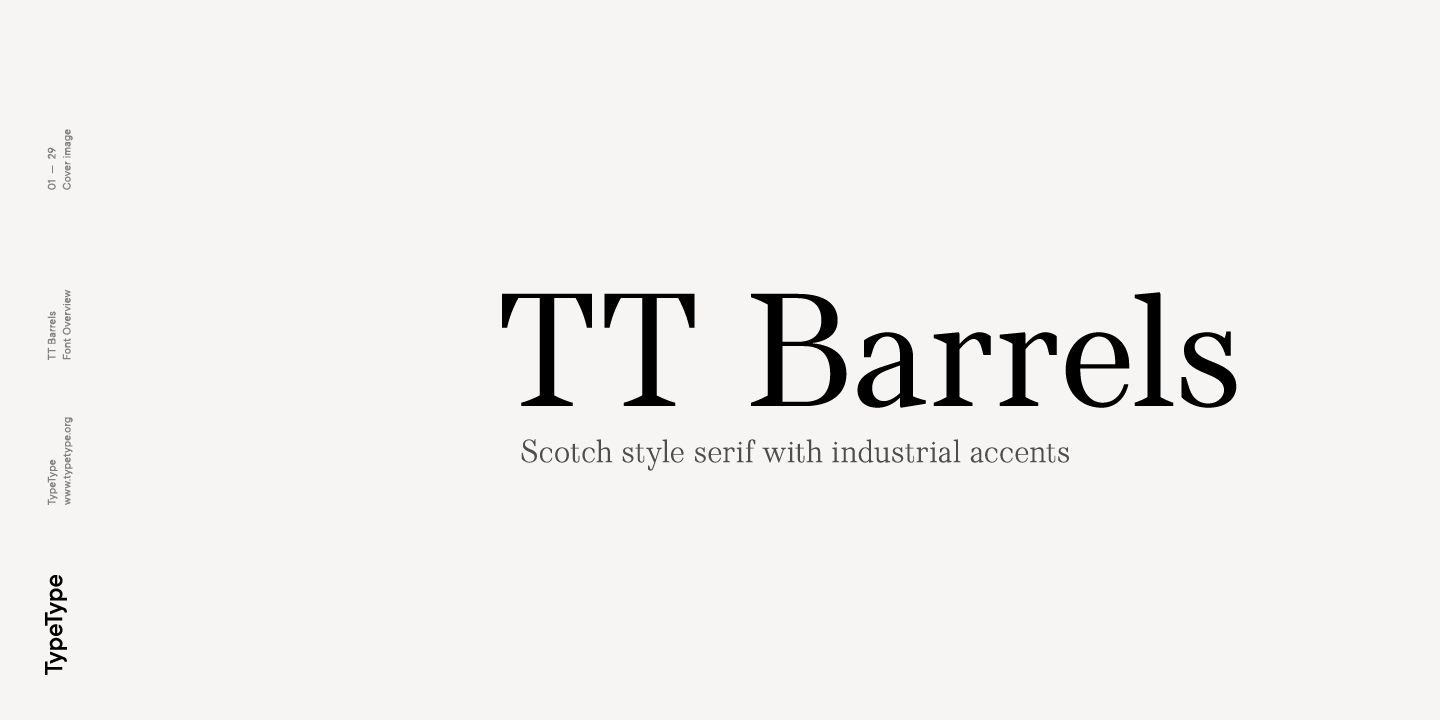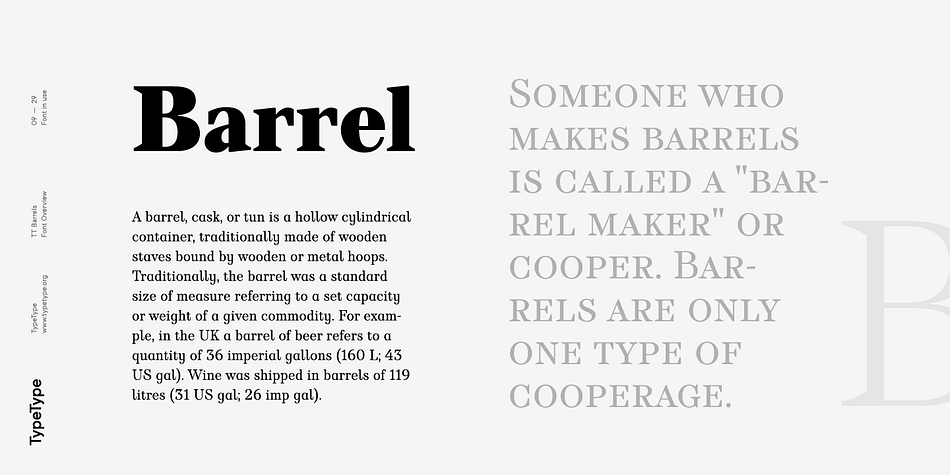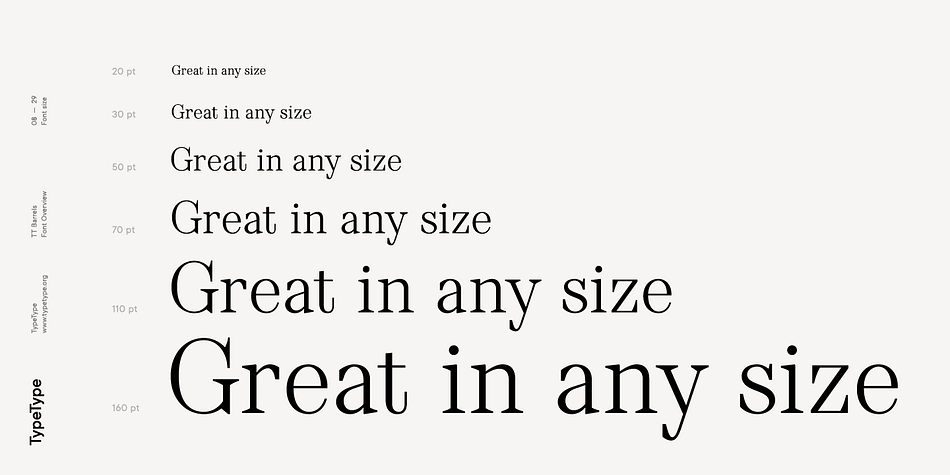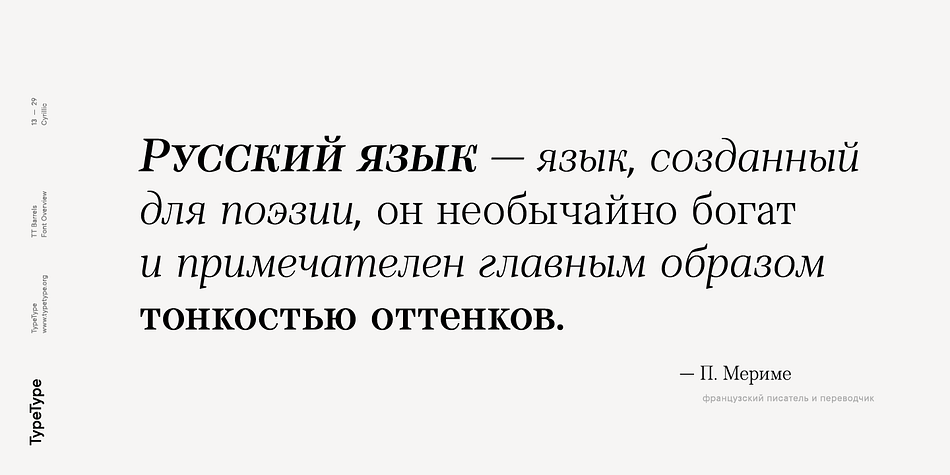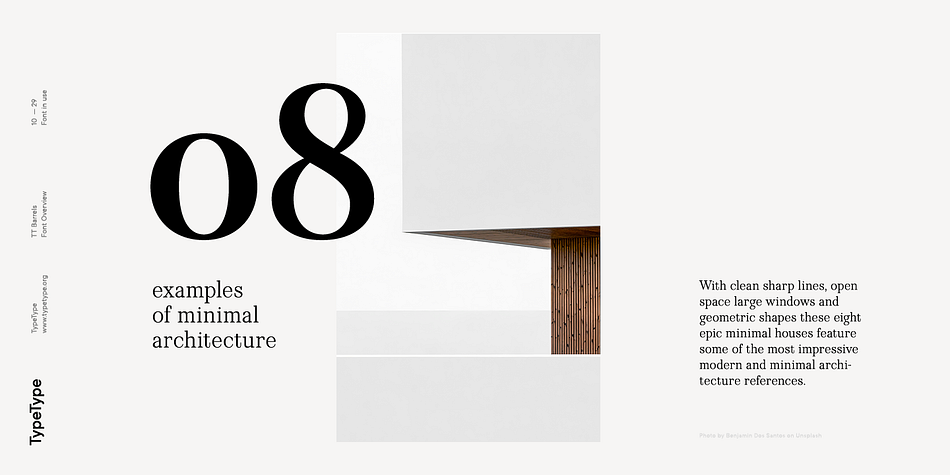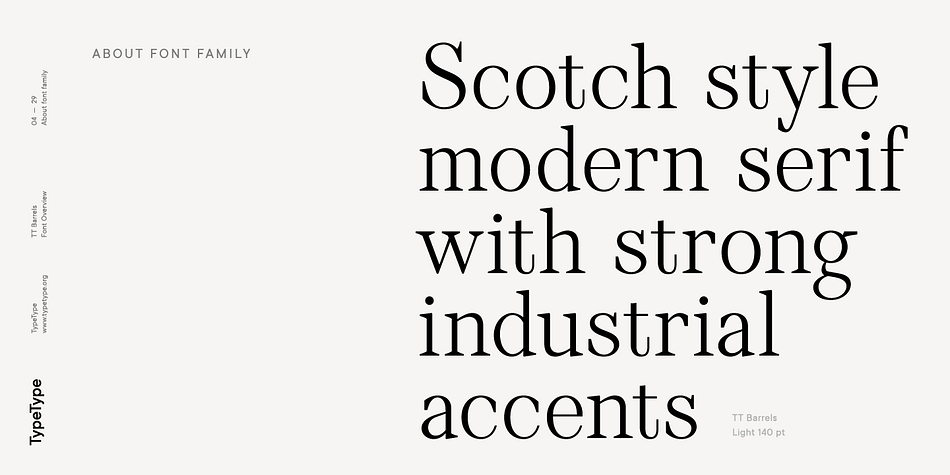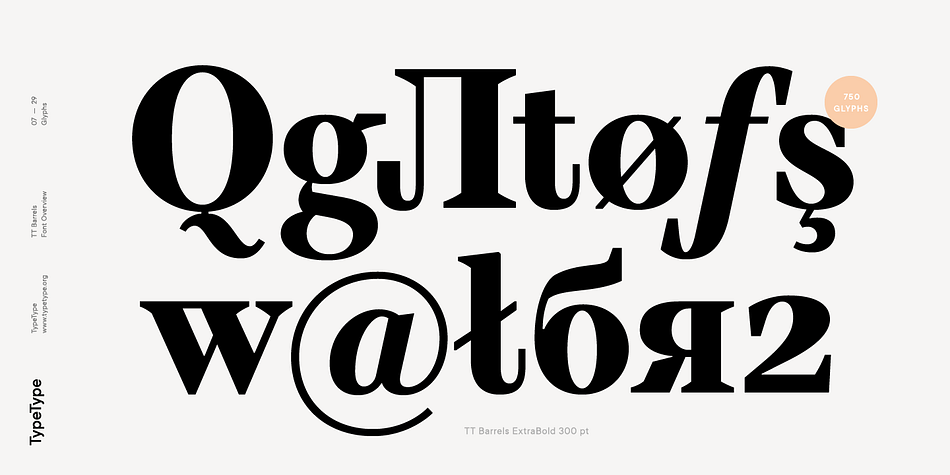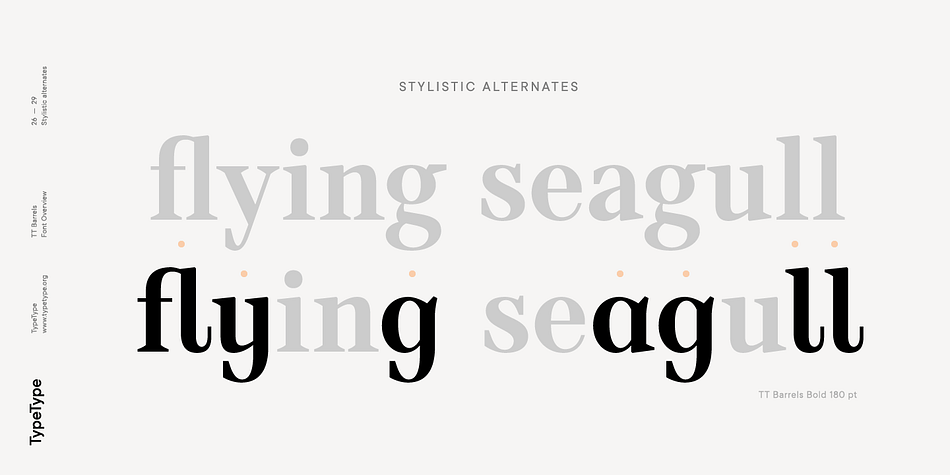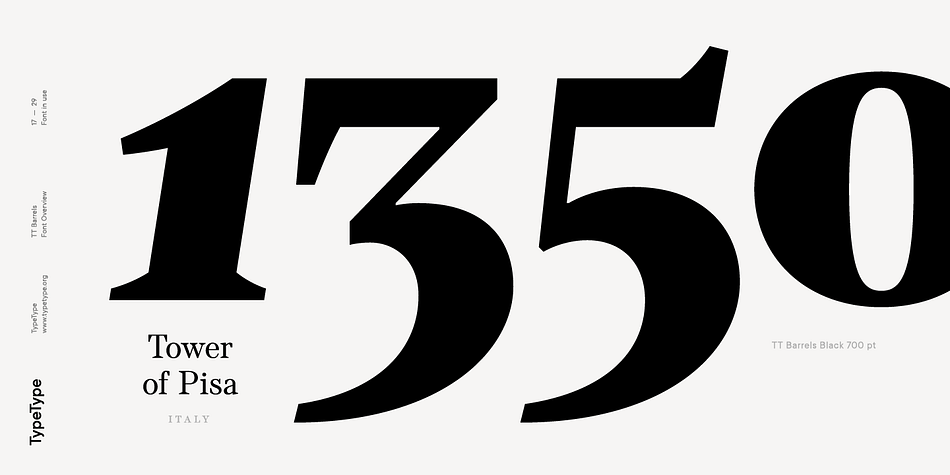
TT Barrels
Designed by TypeType Team, Vika Usmanova, Nadezhda Polomoshnova, Marina Khodak and Inessa Mitrozor, TT Barrels is a serif font family. This typeface has twelve styles and was published by Typetype.
TT Barrels is an elegant scotch style modern serif with strong industrial accents in its design. The TT Barrels project was born from a fictional technical assignment in which we tried to combine the technological effectiveness of industrial production used in engineering and the restrictions imposed by it with a beautiful scotch style serif. We decided to create a typeface that could be used to press letters on the metal body of a car, all while the typeface being elegant, and possessing sophisticated details that are typical of the classic text fonts of the late 19th and early 20th centuries.
In the process of designing and sketching, we reconsidered certain aspects and abandoned some of the requirements imposed by the technology of metal letter pressing, for example, from the extensive application of visual compensators, the decreased strokes contrast, and the hyperdeformation of individual letter elements to preserve a more pronounced rhythm of these elements. First of all, we wanted both to maintain the ease of reading for the entire text array and follow the rules of aesthetics of each letter in the typeface, while still leaving some influence of industrialism. In the end, this influence is best manifested in serifs, which are quite massive and have a technologically exaggerated wedge shape.
TT Barrels consists of 12 fonts: Light, Regular, DemiBold, Bold, Extrabold, Black and the corresponding Italics. Each outline consists of more than 750 glyphs and includes small capitals, ligatures (for Latin and Cyrillic alphabets), stylistic alternates, old-style figures, and many other useful features. The full list of OpenType features: ordn, c2sc, smcp, case, frac, sinf, sups, numr, dnom, tnum, onum, lnum, pnum, dlig, liga, calt, salt (ss01).